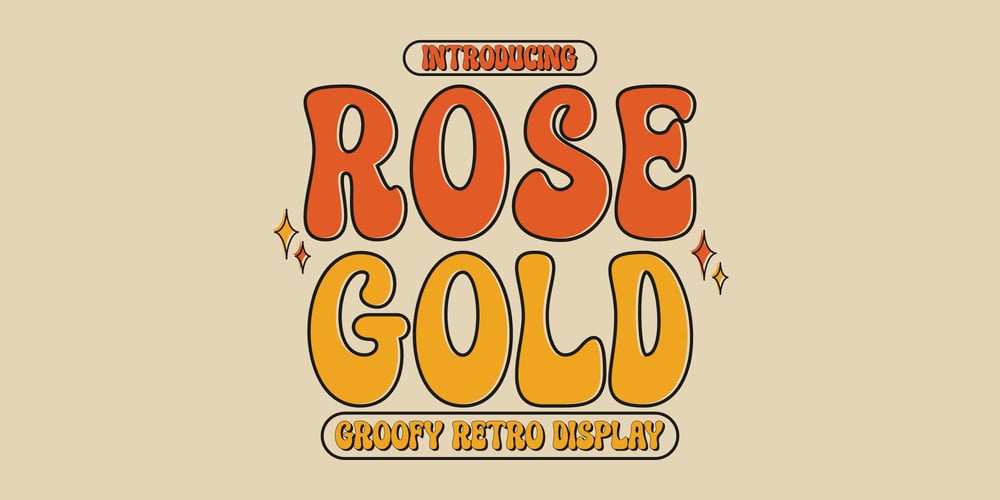
Rose Gold Extrude Font Family was designed by Ferdiansyah and published by ijemrockart. Rose Gold Extrude contains 3 styles and family package options. Rose Gold feels playfully nostalgic and delivers an incredible vintage retro aesthetic. Use this display font to add that special retro touch to any design idea you can think of!. Masterfully designed to become a true favorite, this font has the potential to bring each of your creative ideas to the highest level!WHAT’S YOU GET ? Unique Letterforms Works on PC & Mac Simple Installations Accessible in the Adobe Illustrator, Adobe Photoshop, Microsoft Word Fully accessible without additional design software. I really hope you’ll get pleasure using Rose Gold and it will be a perfect addition to your font collection! Contact me with an inbox message If you have any questions.